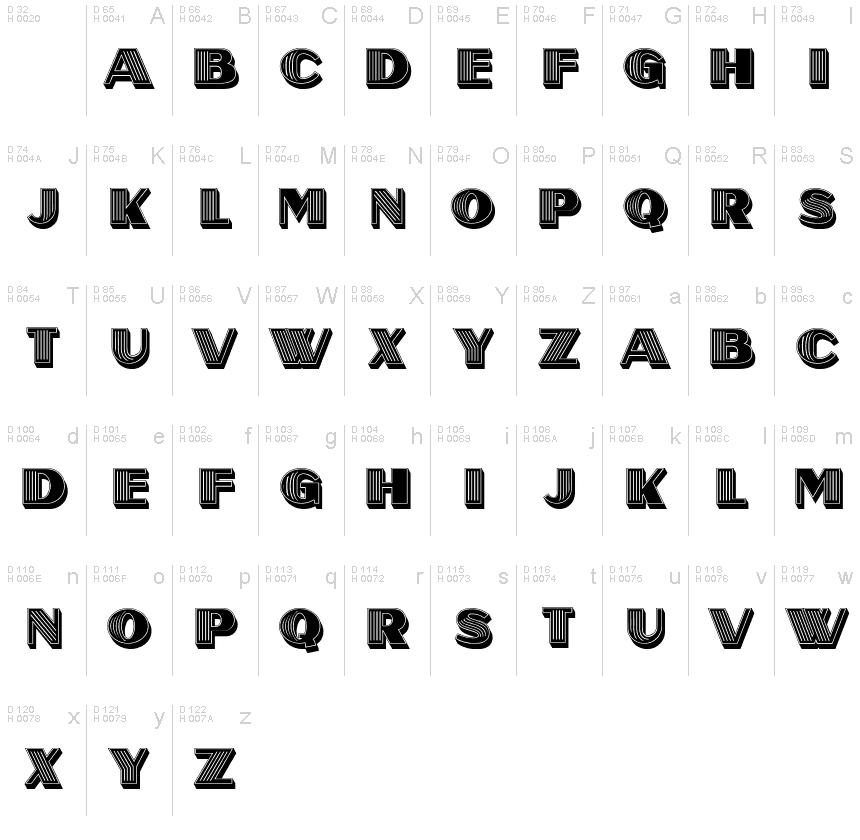
Overhead Regular
Overhead font is a retro decorative typeface designed by Vladimir Nikolic.
It comes in Regular, Hollow, Rustique, Rustique Filled and Abstract variant!